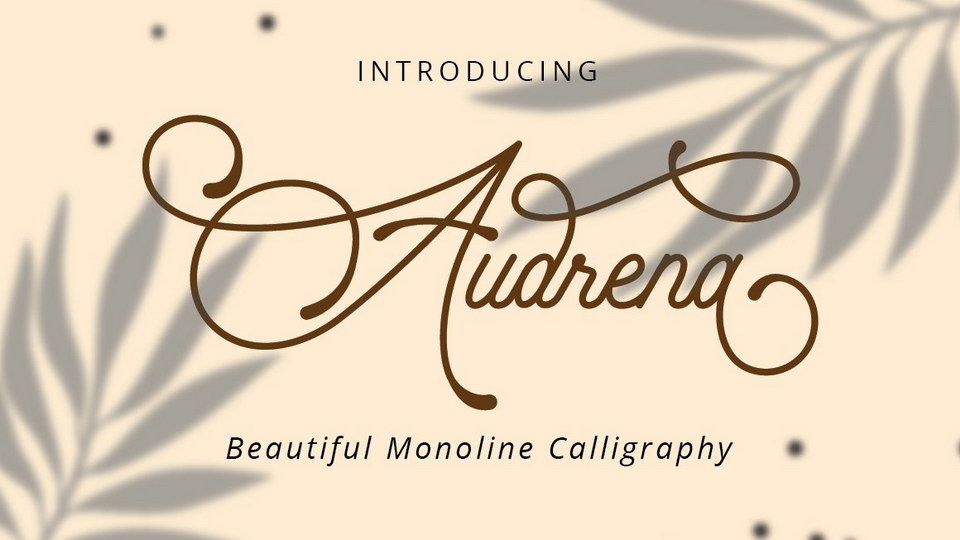
Feb 9, 2025Script & HandwrittenAudrena Font Audrena is a beautiful monoline script font with a lovely, elegant and sweet look.Audrena is perfect for styling logos, stationery, wedding event, invitation, quote, social media, websites and so much more! Font DetailsDesigned by: PutraCetol StudioWebsiteLicense: Free for personal use Download Audrena FontFile size: 80.79 KBCreated: February 16, 2025Updated: February 16, 2025 Download Explore similar fonts Amora Point Font Tender Natural Font Aesthetic Shine Font Royal Kaynin Font Song Camysa Font Avermont House Font # Calligraphy# Cursive# Elegant# Feminine# Handwriting# Monoline# Vintage# Wedding More fonts by PutraCetol StudioSpringate FontMaharaja FontStone Muscle FontNachelle ScriptMaple Wind FontCosmic Network FontInferno Racers FontWaffle Latte Font